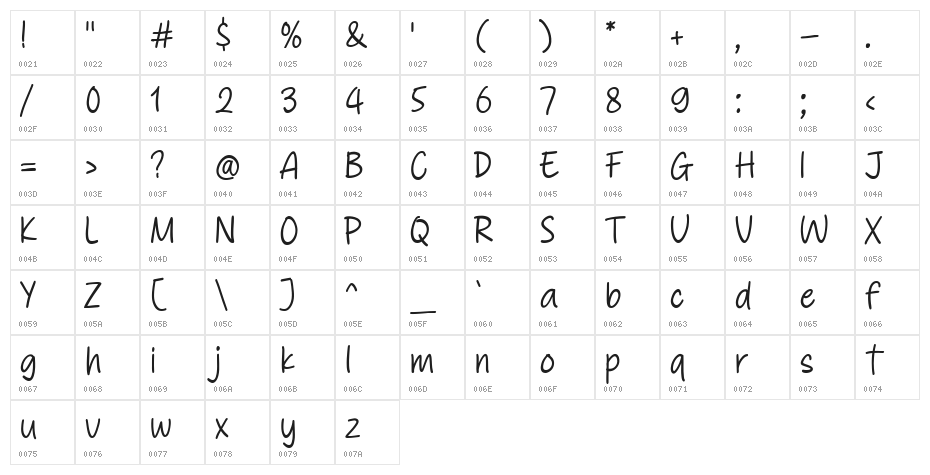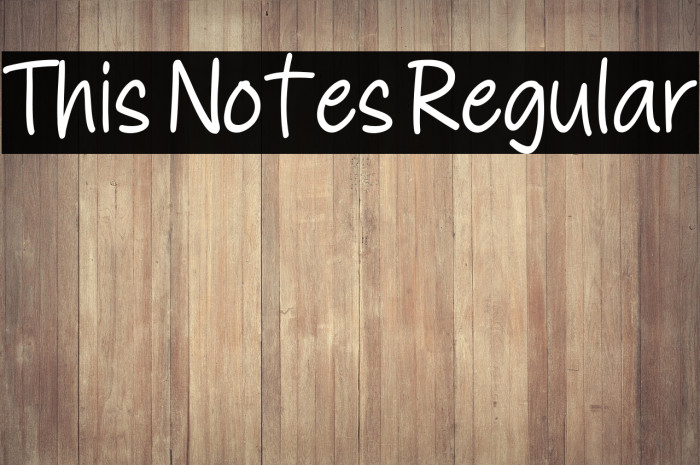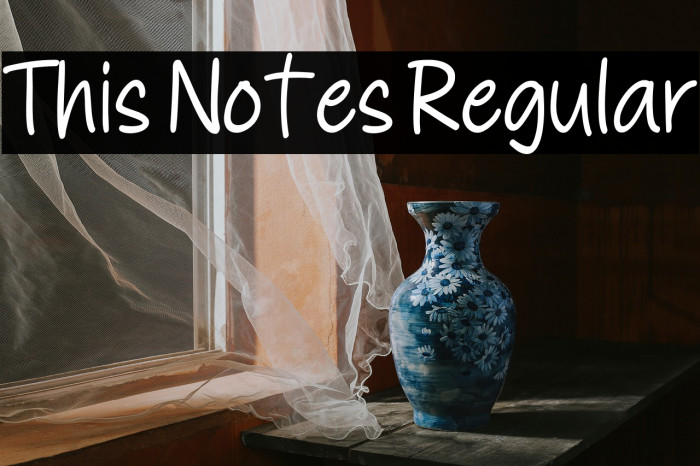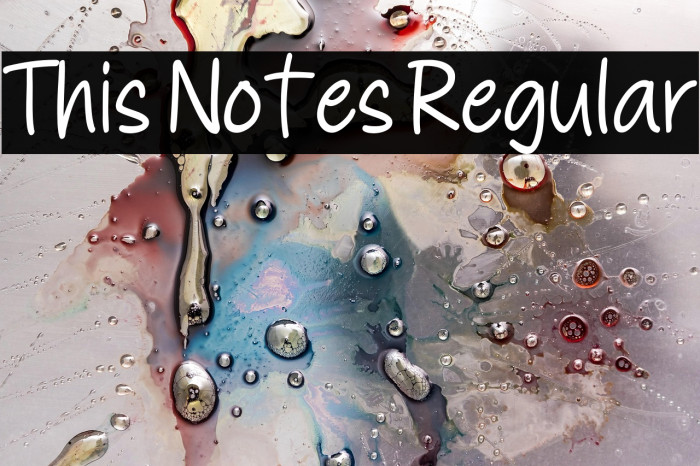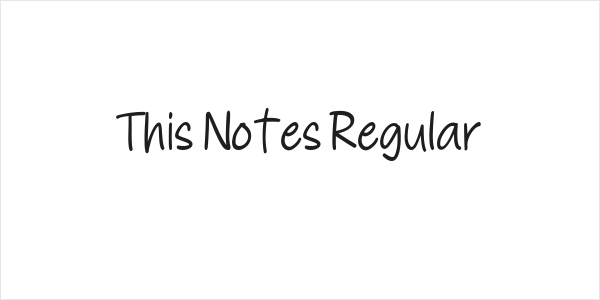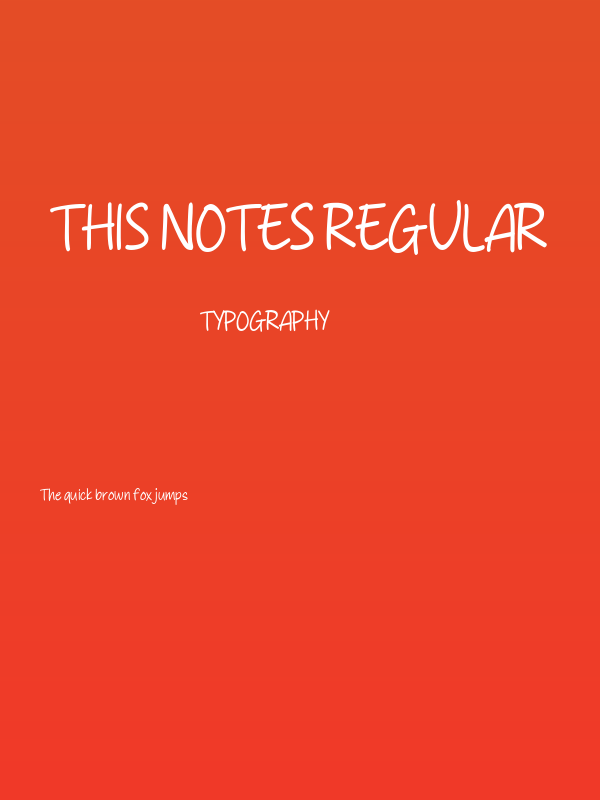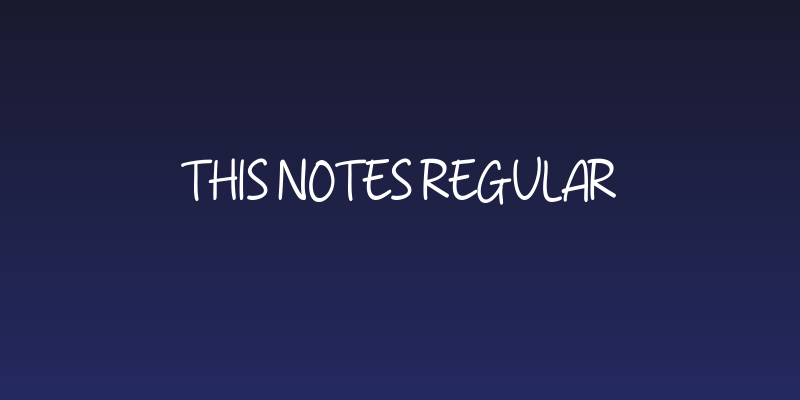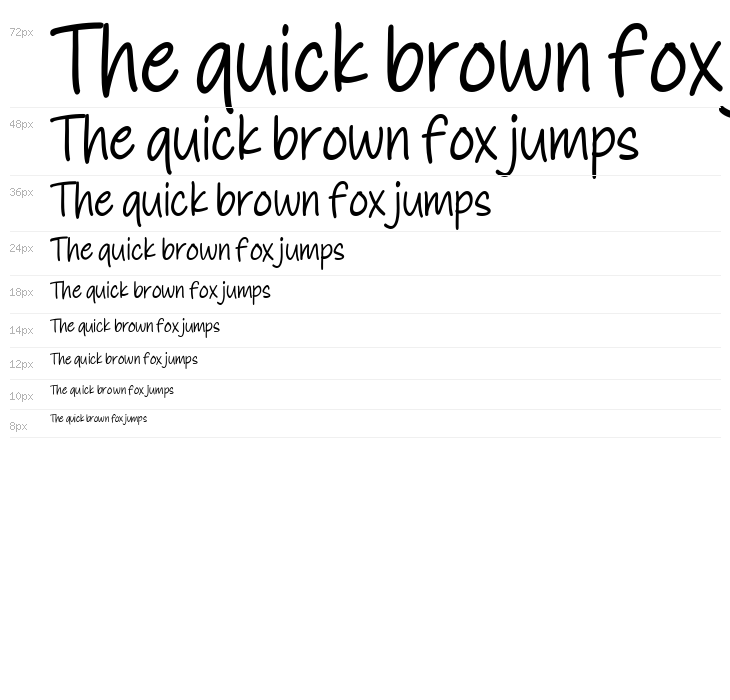
This Notes Regular Font
This Notes Regular Description
This font exhibits a casual, handwritten style with a playful and approachable appearance. The letters are slightly slanted, giving it an informal and relaxed feel. The strokes are consistent in thickness, providing a uniform look across all characters. The rounded edges and smooth curves contribute to its friendly and inviting nature. This font is versatile, suitable for projects that require a personal touch or a less formal tone.
| Use Case | Headlines, Informal text, Personal projects |
| Proposed Projects | Ideal for greeting cards, personal blogs, informal invitations, and children's books. |